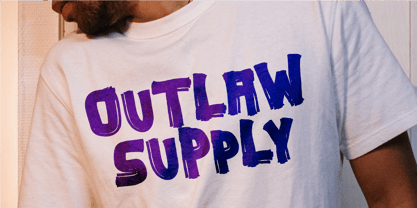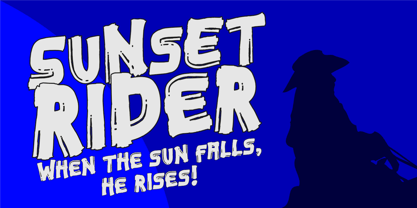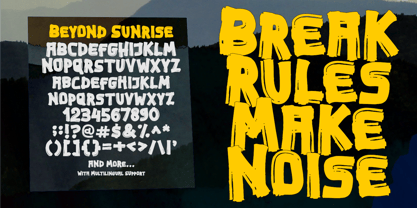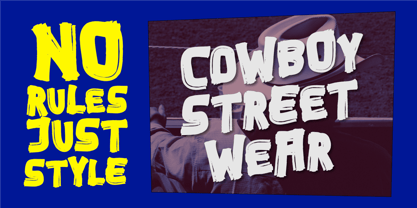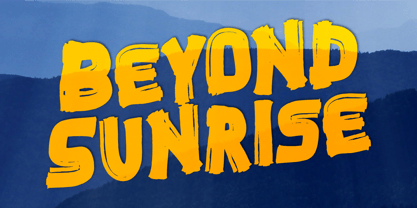
Beyond Sunrise
The Beyond Sunrise Font Family was designed by Nurul Hidayani and published by Olivetype. Beyond Sunrise contains 1 styles.
Beyond Sunrise is a bold brush display font inspired by the quiet power of first light breaking over Mount Bromo. It captures that raw, emotional moment when darkness fades and warm tones begin to glow across the horizon.
Crafted with natural brush strokes, Beyond Sunrise has an organic, hand-painted feel with textured edges and flowing movement. Each letter carries a sense of freedom and energy—perfect for designs that need to feel expressive, cinematic, and full of life.
This font works beautifully for headlines, movie titles, posters, branding, apparel, album covers, and social media visuals. Whether you’re creating something adventurous, inspirational, or artistic, Beyond Sunrise adds a striking and modern touch.